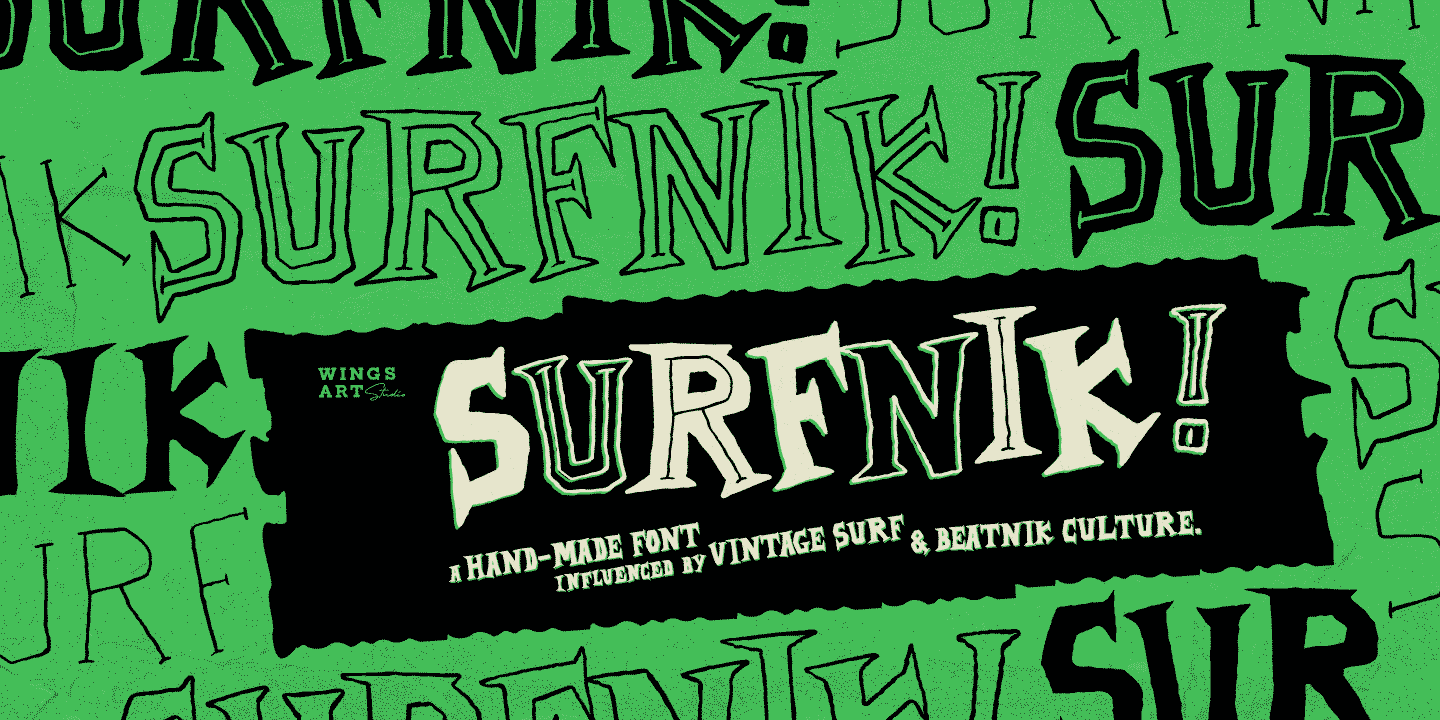
This laid-back font is perfect for surf shop branding, beach resort marketing, coastal lifestyle brands, surfboard graphics, ocean conservation campaigns, tropical vacation promotions, beach bar signage, and authentic surf culture merchandise. Its relaxed character makes it ideal for projects requiring authentic surf vibes and coastal living aesthetics.
Surfnik Font is exciting because it captures the free-spirited essence of surf culture with letterforms that flow like ocean waves and embody the carefree lifestyle of beach communities. The font features organic curves, natural irregularities, and sun-bleached textures that mirror the endless summer mentality and deep connection to the ocean that defines authentic surf culture. Its laid-back personality instantly communicates freedom, adventure, and the timeless appeal of coastal living.
The Surfnik Font family typically includes regular and weathered variations, along with surf-inspired decorative elements, ocean symbols, and beach-themed ornaments. Many versions feature alternate characters with different wave-like flows and special glyphs that enhance the authentic surf culture atmosphere.
Whether you're developing surf lifestyle brands, coastal tourism campaigns, or ocean-focused environmental initiatives, Surfnik Font Free Download provides genuine surf authenticity with professional craftsmanship. This typeface transforms ordinary communications into wave-riding experiences that resonate with surfers, beach lovers, and coastal communities who live for the rhythm of the tides. Its distinctive character adds immediate surf credibility while celebrating the enduring spirit of Surfnik Font Free Download and the timeless connection between humans and the ocean that defines authentic coastal culture.